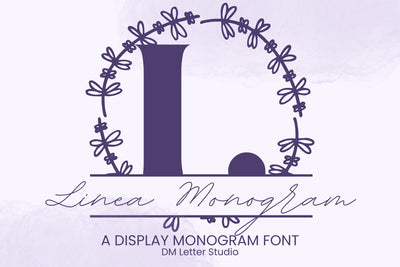
Linea Monogram – Minimal Serif Monogram with Clean Linear Style
Linea Monogram is a crisp minimal serif monogram font built around precise lines and balanced geometry. Each uppercase letter features tidy verticals, measured curves, and generous spacing so initials look clear in print, on screen, and when cut from vinyl. If you love a modern, less-is-more look for weddings, boutique branding, packaging, engraving, and Cricut crafts, Linea Monogram gives your projects a polished, confident finish.
The design focuses on clarity and proportion. Serifs are refined and purposeful, counters are open, and strokes keep a steady rhythm across the set. The result is a monogram style that stays readable at small sizes yet feels architectural on signage or gift items. Pair it with a delicate script for romance, or a neutral sans for a gallery-clean aesthetic.
The font includes uppercase A–Z, numerals, punctuation, and multilingual support for extended European languages. That means names with accents set beautifully, and you can personalize gifts without compromises. Whether you are building a cohesive brand kit or finishing a one-of-a-kind keepsake, Linea Monogram makes the typography feel intentional and calm.
If you’re after a monogram that is modern, elegant, and reliable across mediums, choose Linea Monogram. Its clean linear structure and classic serif cues create initials that feel timeless today and tomorrow.
Minimal Serif Style: Clean, linear letterforms with balanced geometry
Versatile for Personalization: Ideal for weddings, branding, gifts, decals, and packaging
Clear and Consistent: Open counters and steady strokes for excellent readability
Complete Character Set: Uppercase A–Z, numerals, punctuation, multilingual support